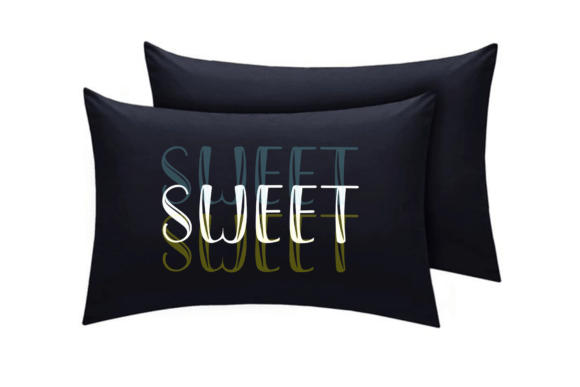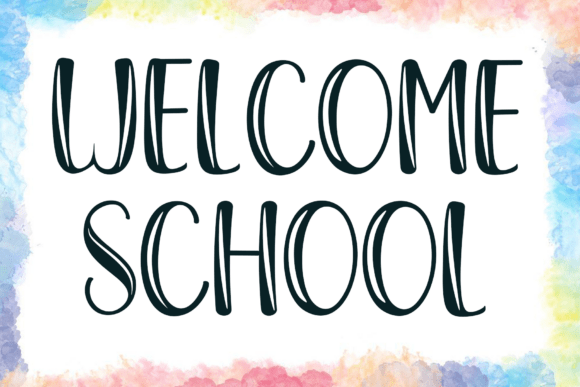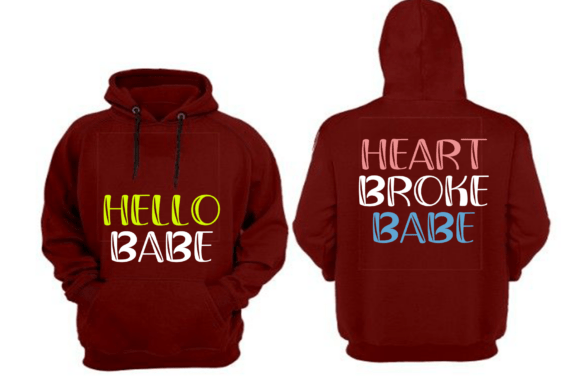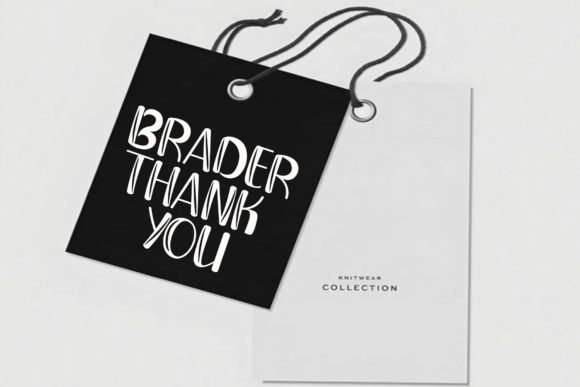
Introduction to Choocolate Font
Imagine you’re sipping a warm cup of hot chocolate on a chilly winter morning, surrounded by the soft glow of twinkling lights. The aroma fills the air, and you can’t help but feel a sense of cozy comfort. This is the kind of feeling that the Choocolate Font evokes, a sweet and friendly display font that’s perfect for adding a touch of warmth to your designs.
As a designer, you know that the right font can make all the difference in a creative project. Whether you’re working on a flyer, poster, or card, the Choocolate Font is an excellent choice. Its fresh and casual vibe makes it ideal for a variety of high-quality design projects, from simple graphics to more complex compositions.
- High-quality design resource for creative projects: Choocolate Font is designed to provide a unique and stylish touch to any project.
- Includes 6 font styles: From bold and elegant to playful and whimsical, Choocolate Font offers a range of styles to suit any creative project.
Honest Review: Choocolate Font
As a designer, I’m always on the lookout for high-quality fonts to elevate my creative projects. Recently, I stumbled upon the Choocolate Font, and I’m excited to share my thoughts on this design resource.
- The Choocolate Font has a unique and stylish design that adds a touch of elegance to any project.
- The font may not be suitable for very small or very large text sizes, as it can become difficult to read.
- The design is quite bold and may not be suitable for projects that require a more subtle look.
Overall, I’m impressed with the Choocolate Font. Its high-quality design and transparent background make it a valuable resource for designers. While it may have some limitations, it’s a great option for creative projects that require a stylish and eye-catching font.
The Choocolate Font is suitable for a variety of creative projects, including logos, business cards, brochures, and social media graphics. It’s also a great choice for web design, advertising, and marketing materials. With its high-quality design and transparent background, the Choocolate Font is a versatile resource for any design project.